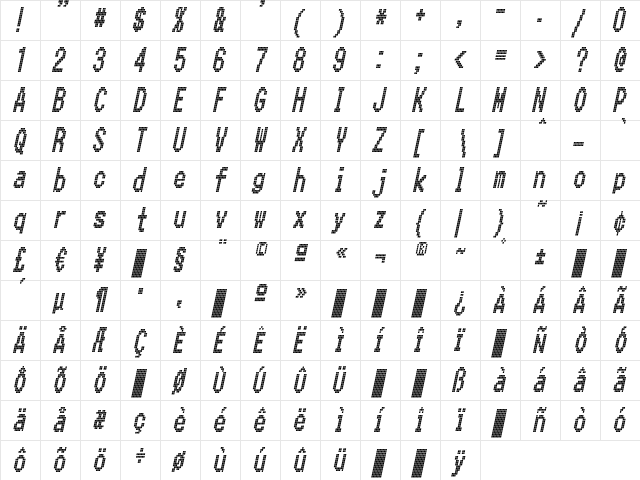
CallNineL-Italic Regular
Design Context for CallNineL-Italic Typeface
CallNineL-Italic takes a measured approach to typography — its balanced proportions and neutral character make it a reliable workhorse for both digital and print work. The slanted form adds forward momentum and visual energy.
Pro Tip: Try CallNineL-Italic for annotation and caption copy alongside an upright companion — the contrast in angle creates a dynamic but ordered typographic system.